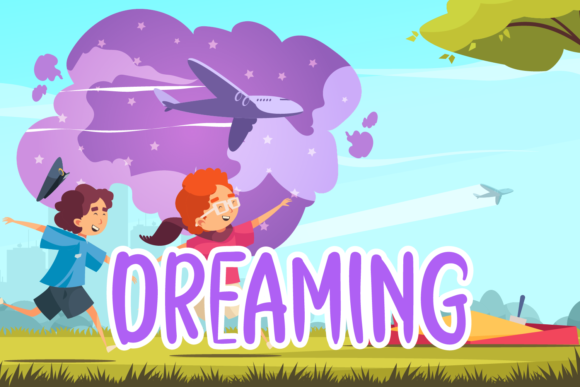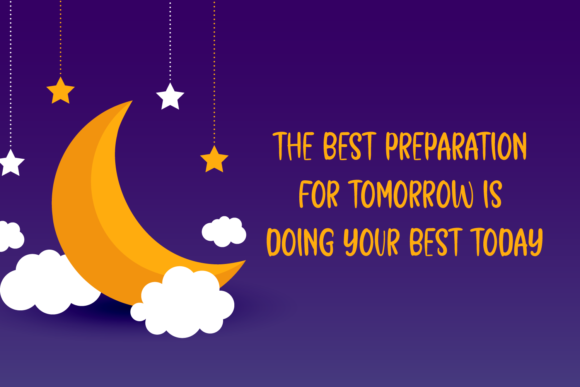
Fresh Dream Font
db-ku.com - Script & Handwritten -- Fresh Dream is a playful and cute handwritten font. This gentle font will look gorgeous on a variety of design ideas. It will add a joyful and romantic touch to each of your projects!